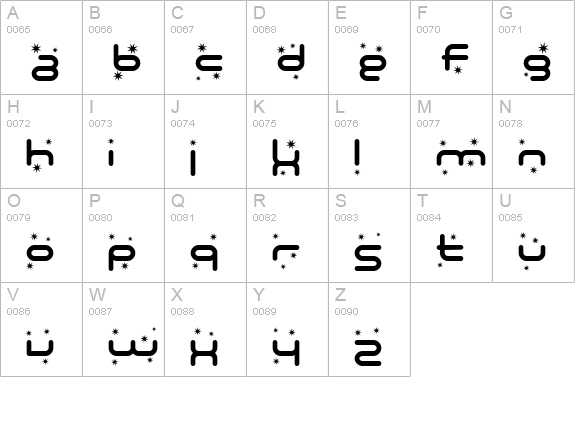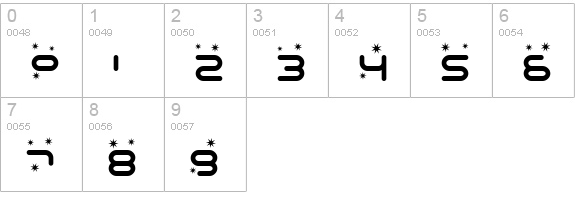
SF Technodelight Font Details
SF Technodelight is a modern and futuristic font that will transport you to the cutting edge of technology. With its sleek and sleek design, this font is perfect for projects that require a high-tech and innovative feel. The crisp lines and geometric shapes of SF Technodelight give it a clean and polished look, making it ideal for logos, headlines, and digital designs. What sets SF Technodelight apart is that it is not only visually stunning, but it is also free. Yes, you read that right! This incredible font is freely available to download at FontsMarket.com. Now, you can add a touch of futuristic elegance to your projects without breaking the bank. Whether you are designing a website, creating a presentation, or even just crafting a personal project, SF Technodelight will elevate your work to new heights. Its versatility allows it to be used in a wide range of applications, from technology-focused projects to creative endeavors. The characters of SF Technodelight are carefully crafted, ensuring legibility and readability even at smaller sizes. Each letter and symbol is meticulously designed, creating a cohesive and professional appearance. The font's bold and confident presence will captivate your audience and leave a lasting impression. So why wait? Experience the delight of SF Technodelight for yourself. Download it for free at FontsMarket.com and unlock a world of possibilities. Embrace the future of design with this remarkable font, and watch as your projects come to life with a touch of technological brilliance.